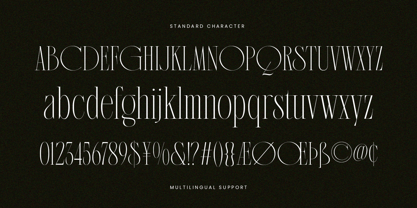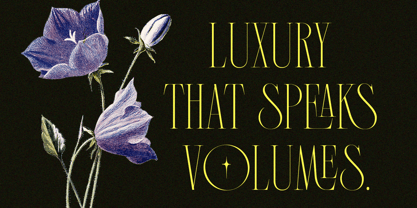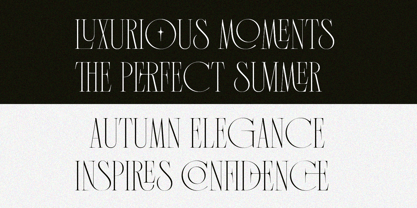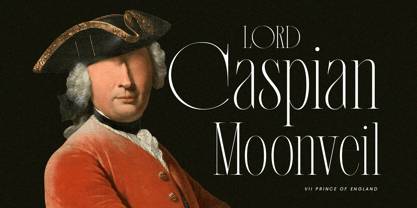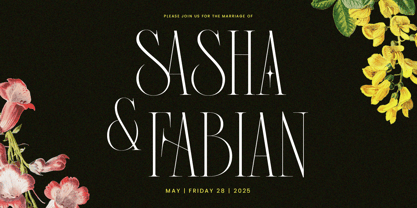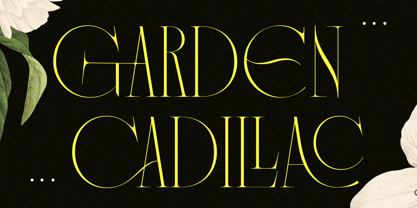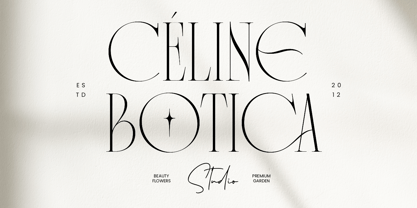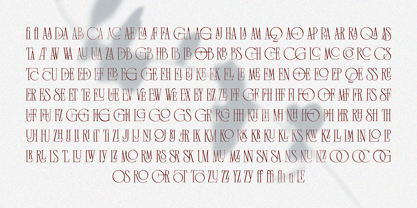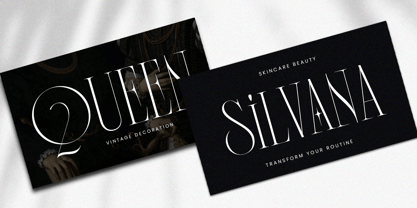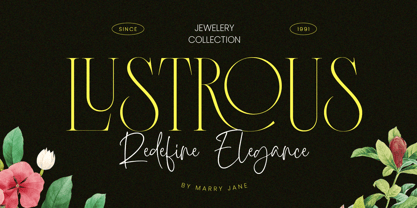
Vagesha Rolenda
The Vagesha Rolenda Font Family was designed by Ahmad Ramzi Fahruddin and published by Arterfak Project. Vagesha Rolenda contains 1 styles. More about this family
Introducing Vagesha Rolenda, a nostalgic vintage serif that embodies timeless elegance with a touch of cultural charm. This font features a condensed height, geometric curves, and elongated serifs, creating a sophisticated and refined look. Its slim and luxurious design makes it perfect for captivating displays.
With over 100 ligatures, Vagesha Rolenda offers endless opportunities to explore unique typographic styles, adding depth and sophistication to your designs. It’s an excellent choice for logos, posters, wedding invitations, cards, branding, flyers, and more.
Unlock the beauty of vintage elegance with Vagesha Rolenda and elevate your creative projects to new heights.
Fonts featured :
• Uppercase
• Lowercase
• Numbers & punctuation
• Stylistic alternates
• Ligatures
• Multilingual support.